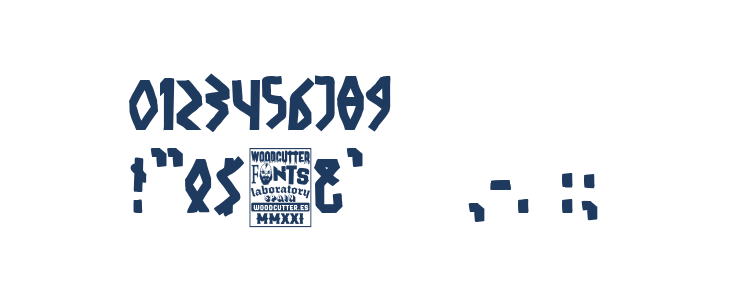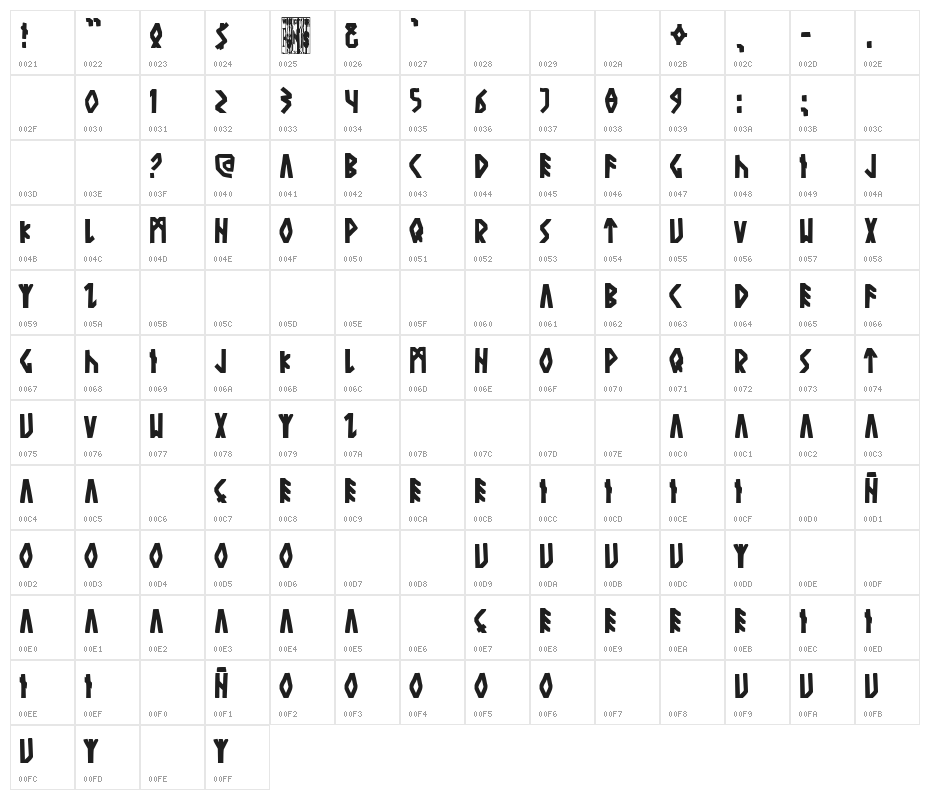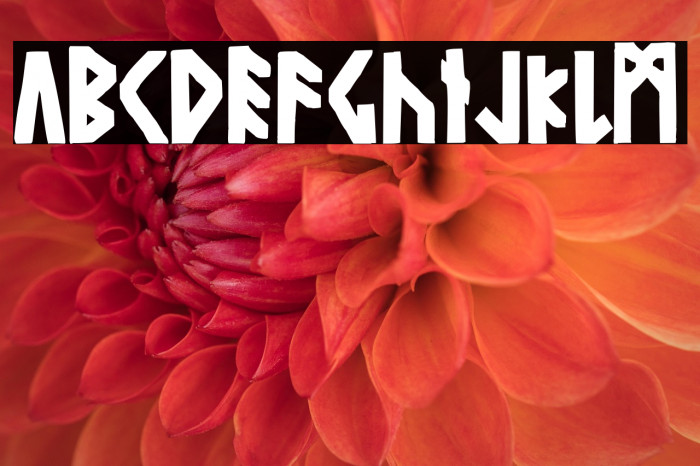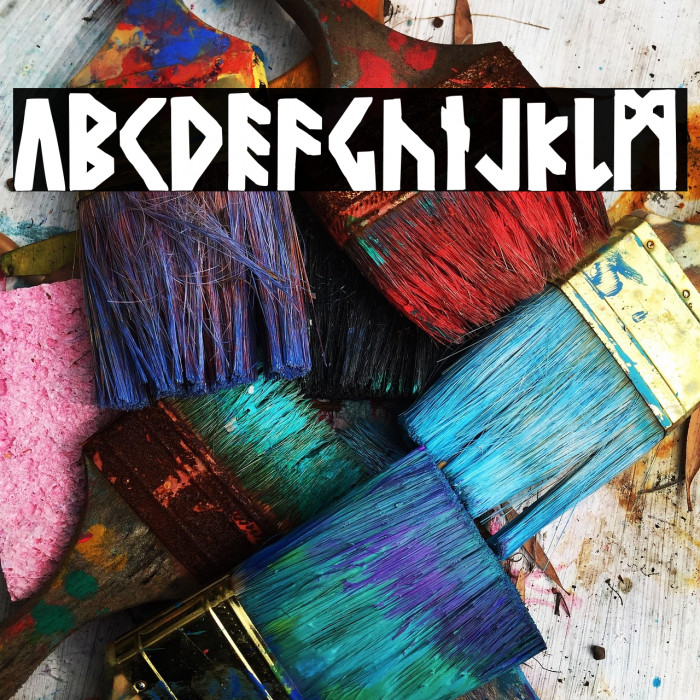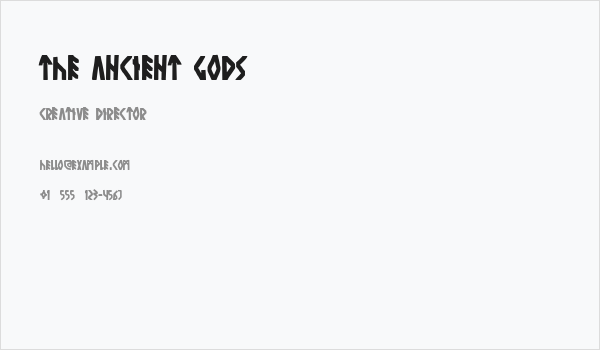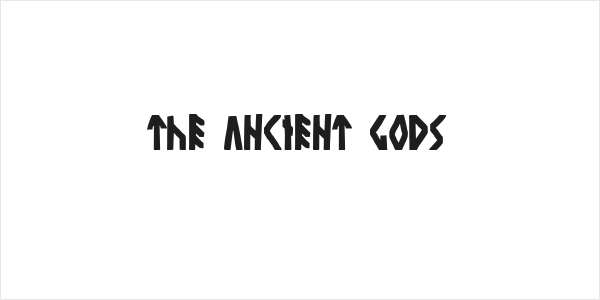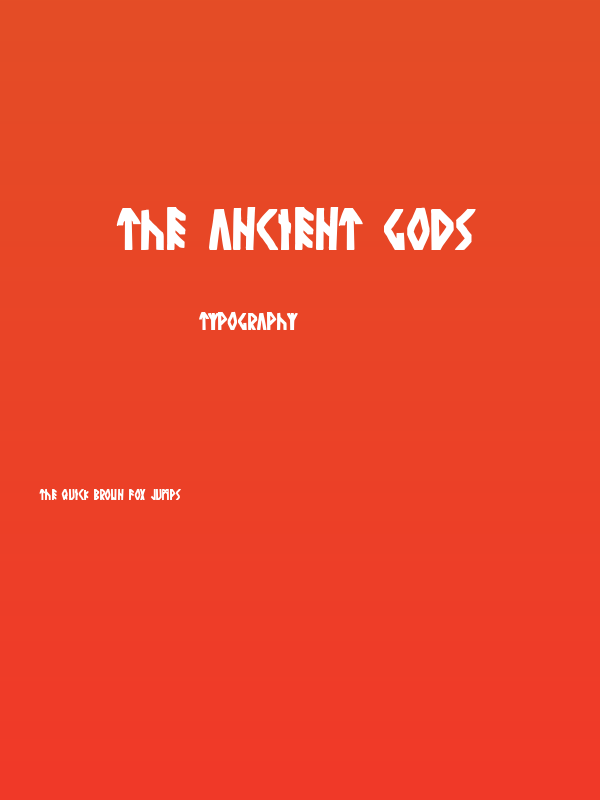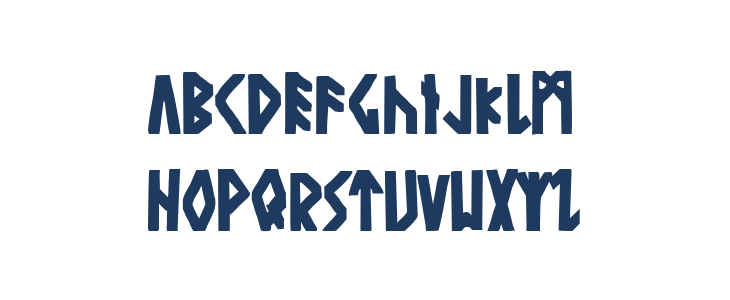
The Ancient Gods Font
The Ancient Gods Description
This font exhibits a bold and angular design, reminiscent of ancient runic inscriptions. The characters are sharply defined with a distinct geometric style, giving it a strong and commanding presence. The uppercase letters are particularly striking, with each character featuring unique angles and cuts that enhance its ancient and mystical appearance. The numbers and special characters maintain this theme, providing a cohesive look across all elements. The font's overall aesthetic is both powerful and enigmatic, making it ideal for projects that require a touch of historical or mythical flair.